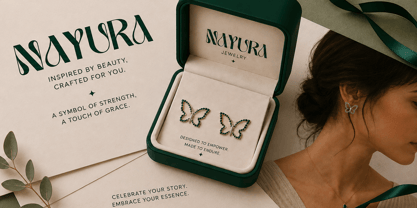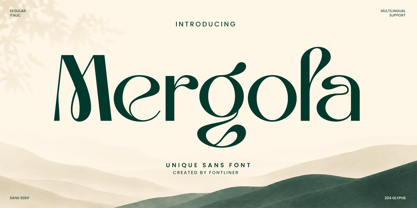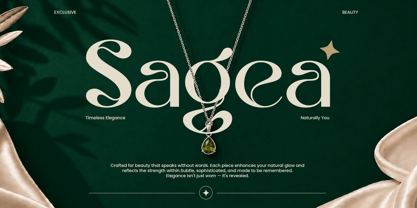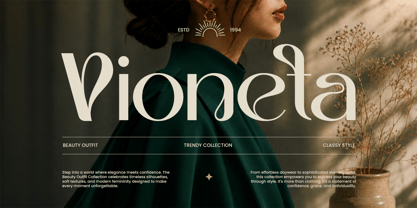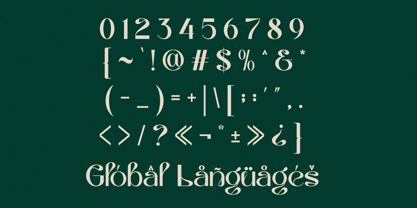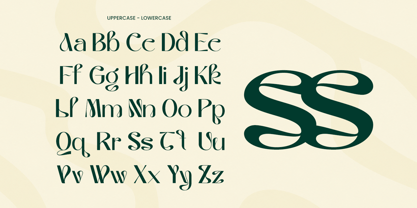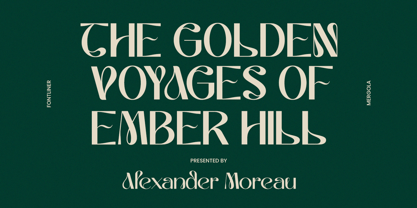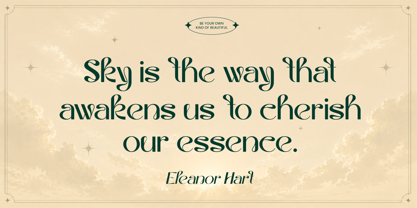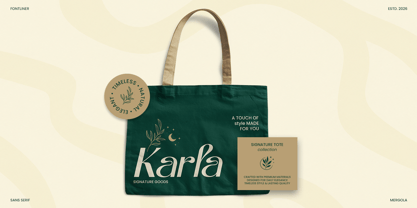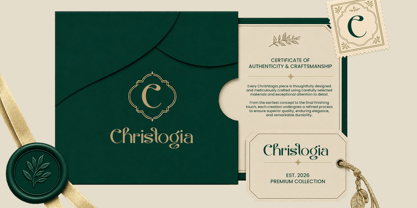
Mergola
by Font Liner
Introducing Mergola, a unique elegant sans serif font that blends modern minimalism with sophisticated artistic curves. Designed with distinctive letterforms, refined contrast, and graceful alternates, Mergola creates a luxurious visual presence that instantly elevates branding, editorial layouts, and premium design projects.
Its stylish contemporary construction makes it ideal for luxury fashion brands, beauty products, boutique businesses, wedding stationery, magazines, logos, packaging, and social media content. The carefully crafted characters offer a perfect balance between readability and decorative elegance, allowing designers to create memorable identities with confidence.
Whether you're designing a high-end logo, fashion campaign, cosmetic packaging, editorial headline, or upscale brand identity, Mergola delivers a timeless aesthetic that feels modern, classy, and exclusive. Complete with multilingual support and both Regular and Italic styles, this font provides versatility for a wide range of creative applications.